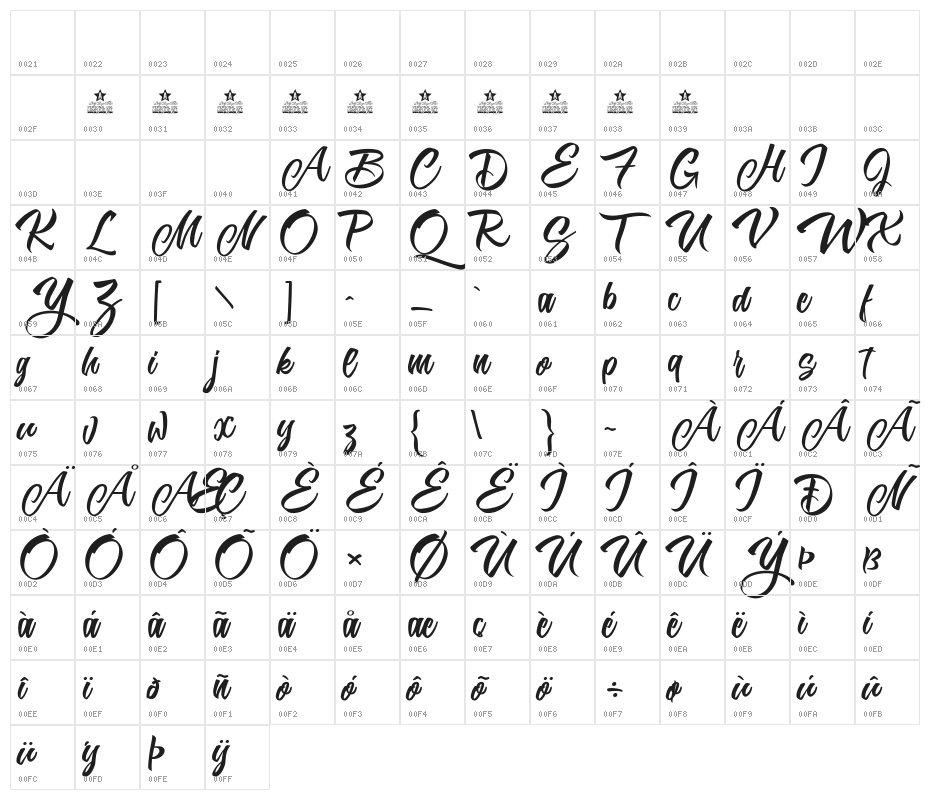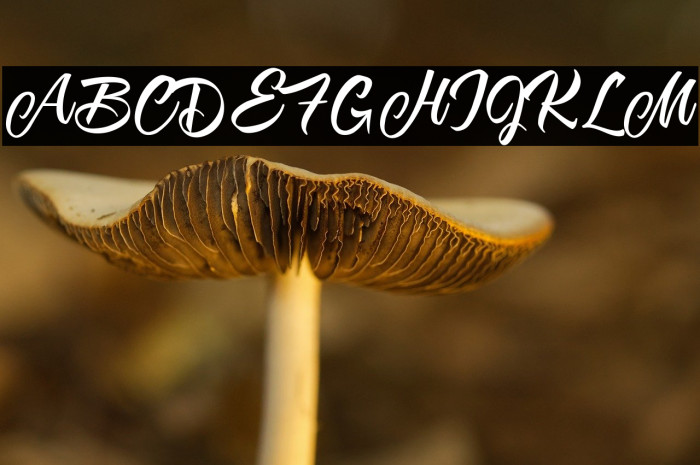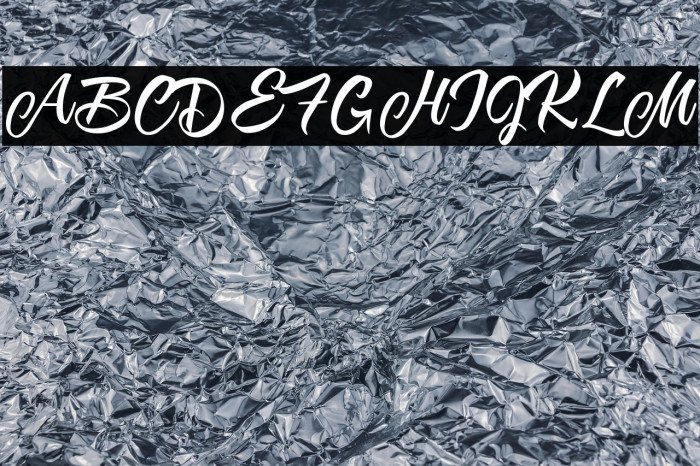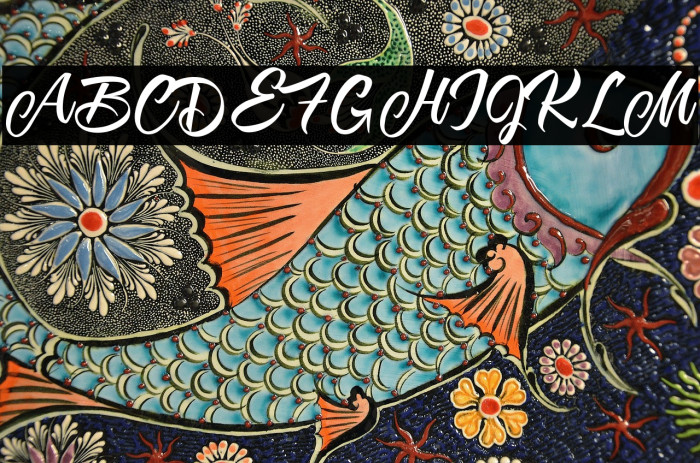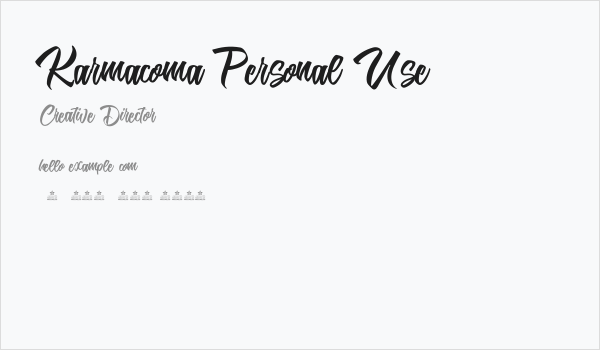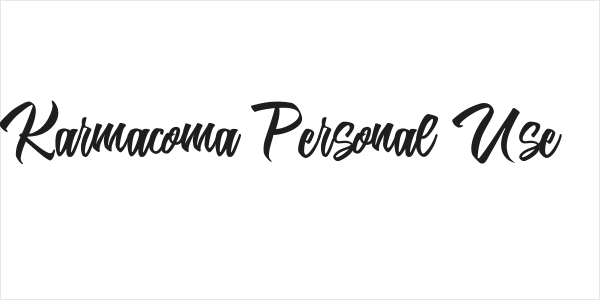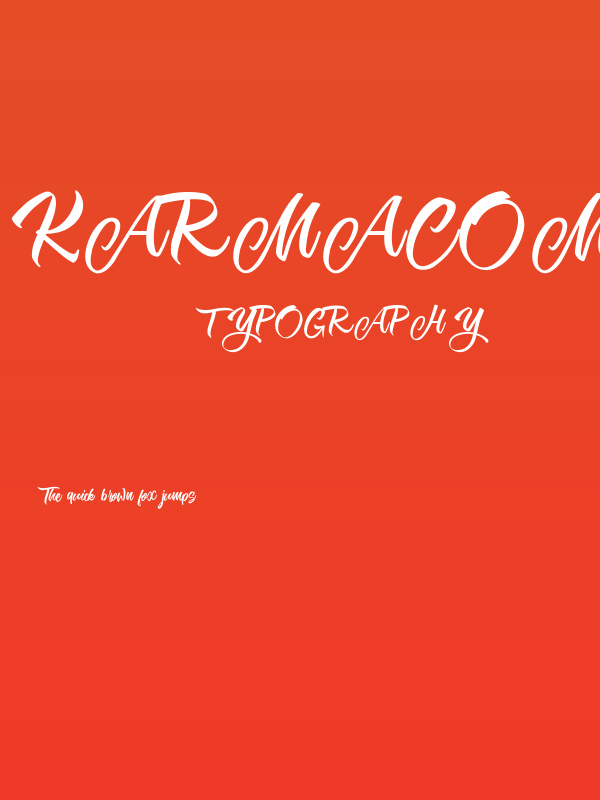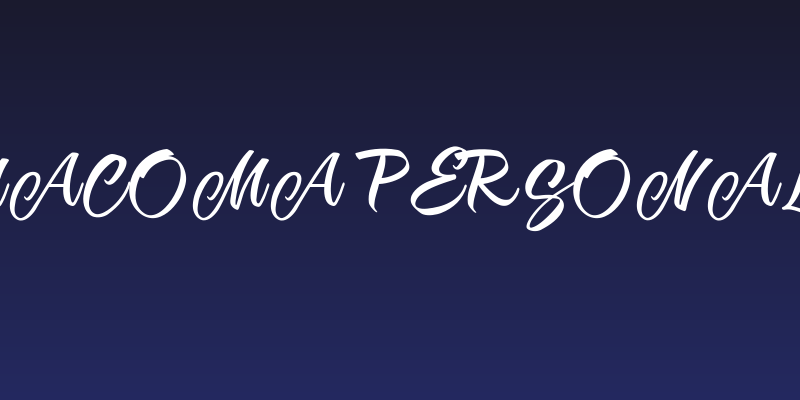
Karmacoma Personal Use Font
Karmacoma Personal Use Description
This font features a dynamic and expressive script style, characterized by its fluid, cursive strokes and elegant curves. The uppercase letters exhibit a graceful flow with a slight slant, while the lowercase letters maintain a bold and confident appearance. The font's design is both artistic and legible, making it suitable for creative projects that require a personal touch. The characters are well-spaced, ensuring readability, and the overall aesthetic is both modern and stylish. The font includes a full set of uppercase and lowercase letters, numbers, and a selection of special characters, allowing for versatile use in various design contexts.